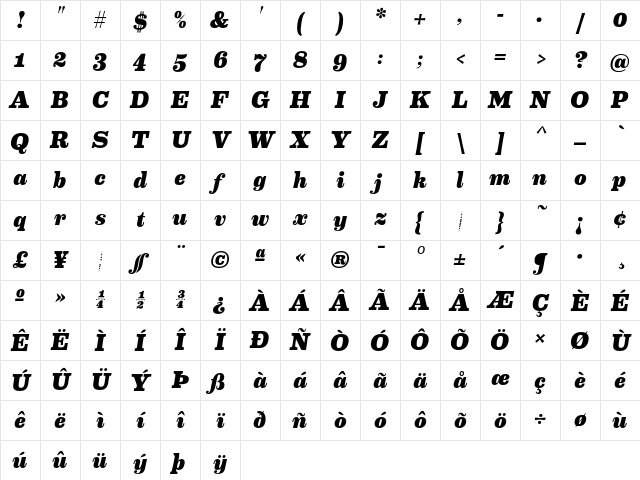
Eames Century Modern Extra Bold Italic
Foundry: House Industries
Designer: Erik van Blokland
Design Context for Eames Century Modern Extra Bold
Eames Century Modern Extra Bold is a composed and adaptable typeface that performs quietly and consistently across a wide range of design contexts. The slanted form adds forward momentum and visual energy. Its bold stroke weight gives it real presence on the page.